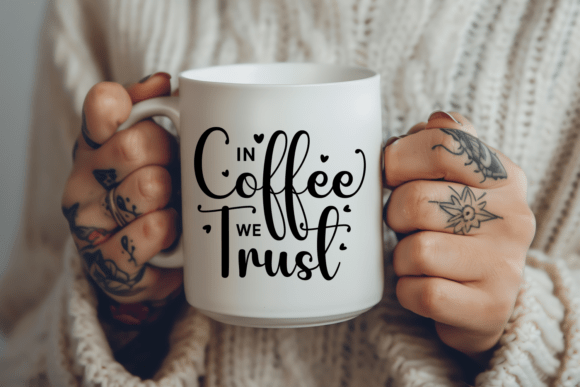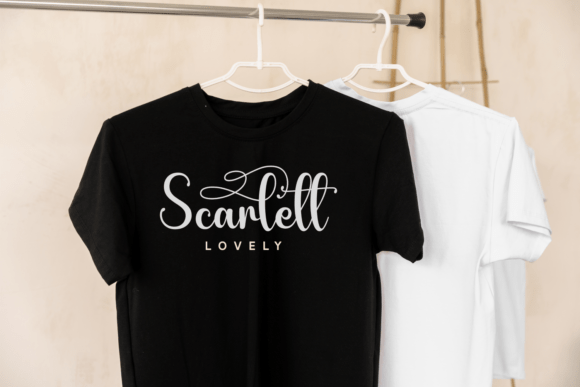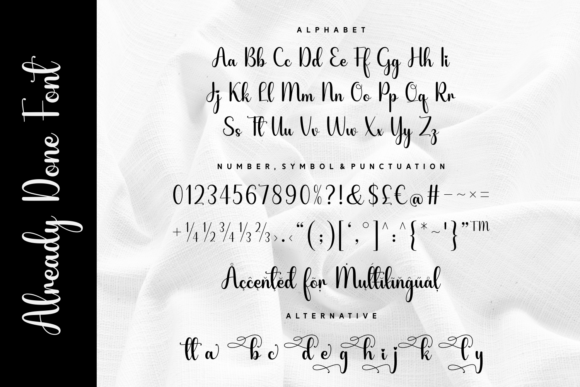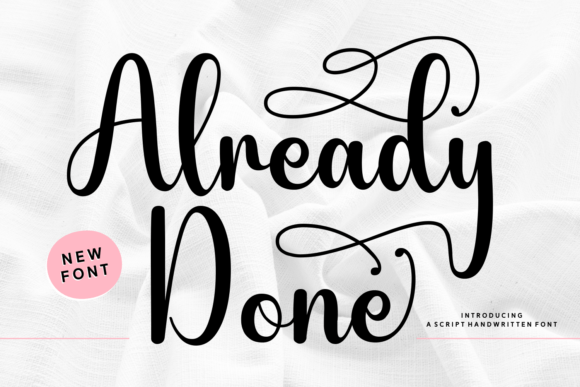
Introducing Already Done Font: Elevate Your Designs with Elegance and Sophistication
In the world of typography, few fonts manage to strike a balance between elegance and modernity. However, Already Done Font achieves this feat with remarkable finesse. This stylish and elegant script font seamlessly blends smooth curves with bold strokes, resulting in a refined handwritten aesthetic that captivates audiences. Whether you’re a designer looking to elevate your branding or a crafter seeking the perfect font for wedding invitations, Already Done is the perfect choice.
The Characteristics of Already Done Font
Already Done Font boasts a range of characteristics that make it an exceptional addition to any design project. Some of its key features include:
- Smooth Curves and Bold Strokes: The font’s unique blend of smooth curves and bold strokes creates a visually appealing contrast that adds depth and sophistication to any design.
- Flowing Swashes: The elegant swashes in Already Done Font add a touch of refinement and luxury, making it perfect for high-end branding and wedding invitations.
- Clean Letterforms: The font’s clean letterforms ensure that your message is conveyed clearly and confidently, making it ideal for a range of design applications.
Perfect Applications for Already Done Font
Already Done Font is incredibly versatile, making it suitable for a wide range of design projects. Some of the perfect applications for this font include:
- Branding: Already Done Font is perfect for creating elegant and sophisticated brand identities that exude confidence and refinement.
- Wedding Invitations: The font’s elegant swashes and clean letterforms make it an ideal choice for wedding invitations, adding a touch of luxury and romance to your designs.
- Product Packaging: Already Done Font is well-suited for product packaging, adding a touch of sophistication and elegance to your product designs.
- Elegant Logos: The font’s unique blend of smooth curves and bold strokes makes it perfect for creating elegant and memorable logos.
Adding a Touch of Elegance to Your Designs
Already Done Font is more than just a font – it’s a design solution that can elevate your projects to new heights. With its elegant swashes and clean letterforms, this font can add a touch of sophistication and refinement to any design. Whether you’re crafting social media graphics or adding a feminine touch to stationery, Already Done Font makes the job feel – well – already done!
Why Choose Already Done Font?
With so many fonts available, why choose Already Done Font? Here are just a few reasons why this font stands out from the crowd:
- Unique Aesthetic: Already Done Font boasts a unique blend of smooth curves and bold strokes, creating a truly refined handwritten aesthetic.
- Versatility: The font is incredibly versatile, making it suitable for a wide range of design applications.
- Elegance and Sophistication: Already Done Font exudes elegance and sophistication, making it perfect for high-end branding and luxury designs.
In conclusion, Already Done Font is a stylish and elegant script font that can elevate your designs to new heights. With its unique blend of smooth curves and bold strokes, flowing swashes, and clean letterforms, this font is perfect for designers and crafters looking to add a touch of sophistication and refinement to their projects. Whether you’re creating branding, wedding invitations, product packaging, or elegant logos, Already Done Font is the perfect choice.